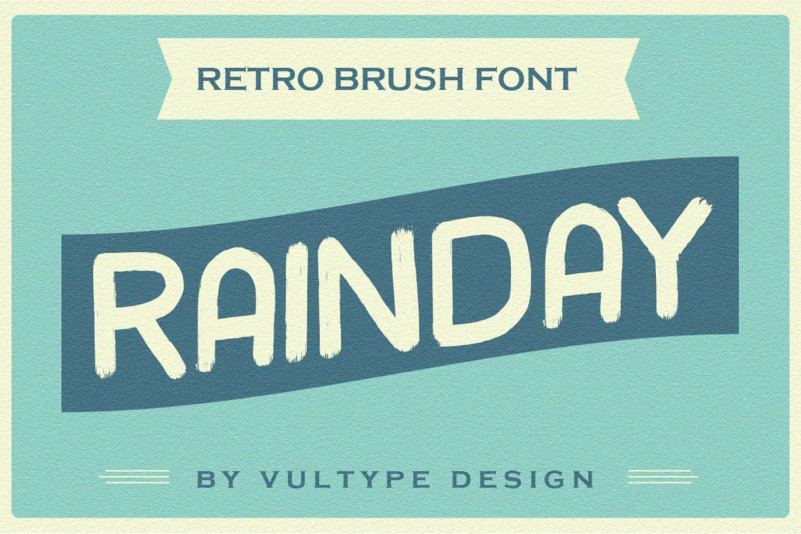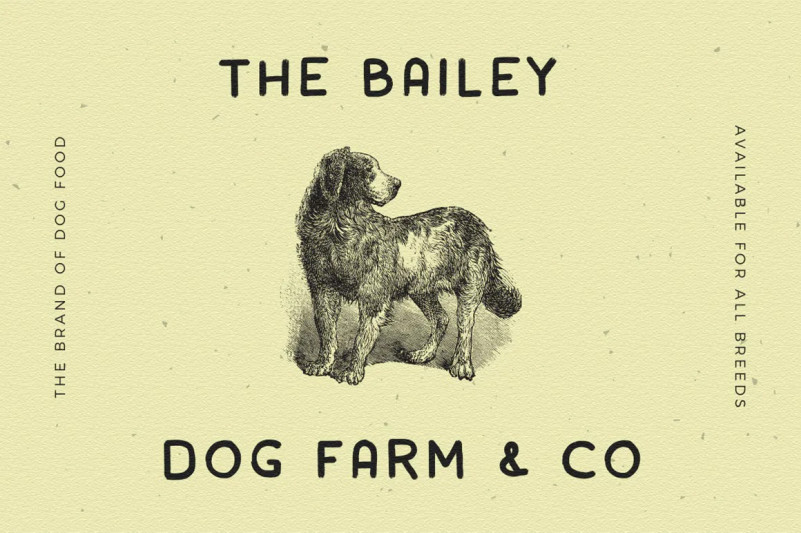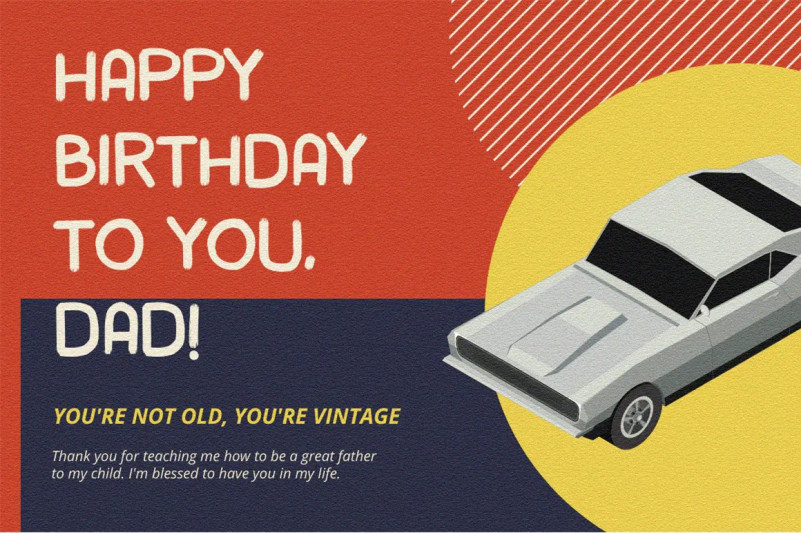
Rainday Font
Rainday is a vintage reto font It has both modern and retro look – clear, modern and fun. Helps to create layout design in 60s or 70s design projects.